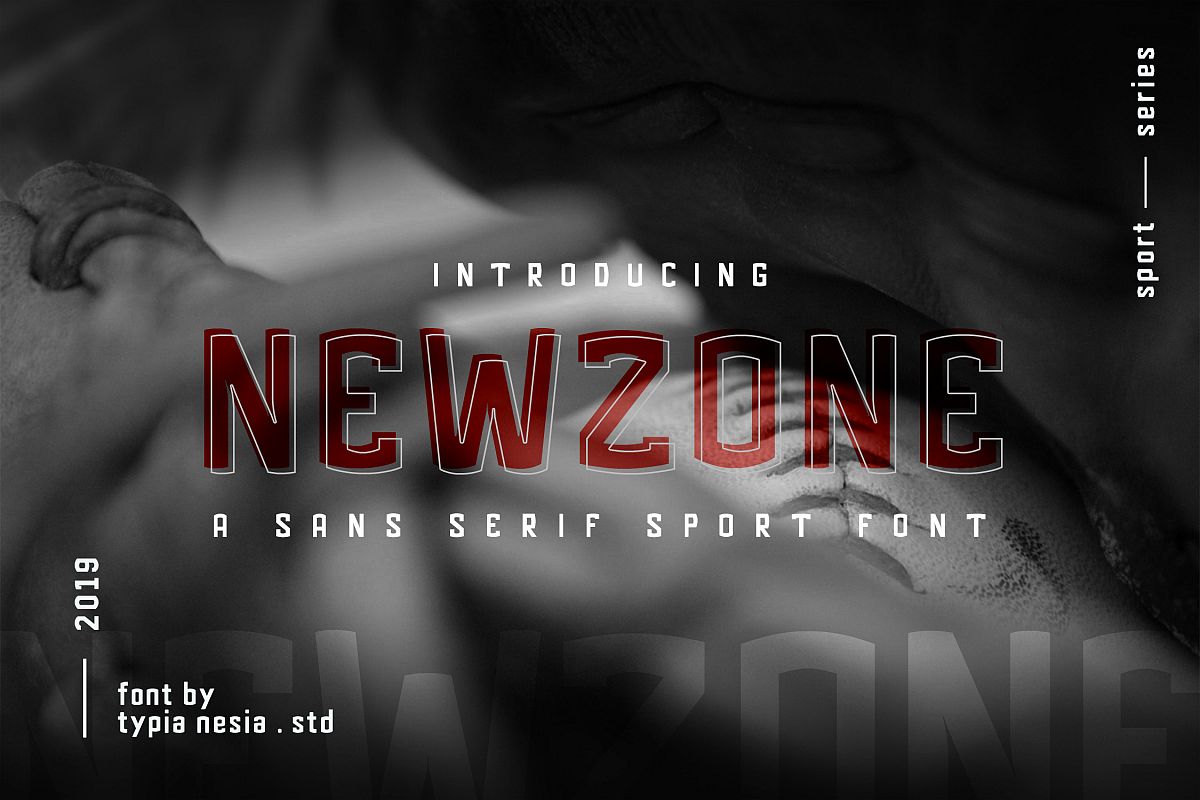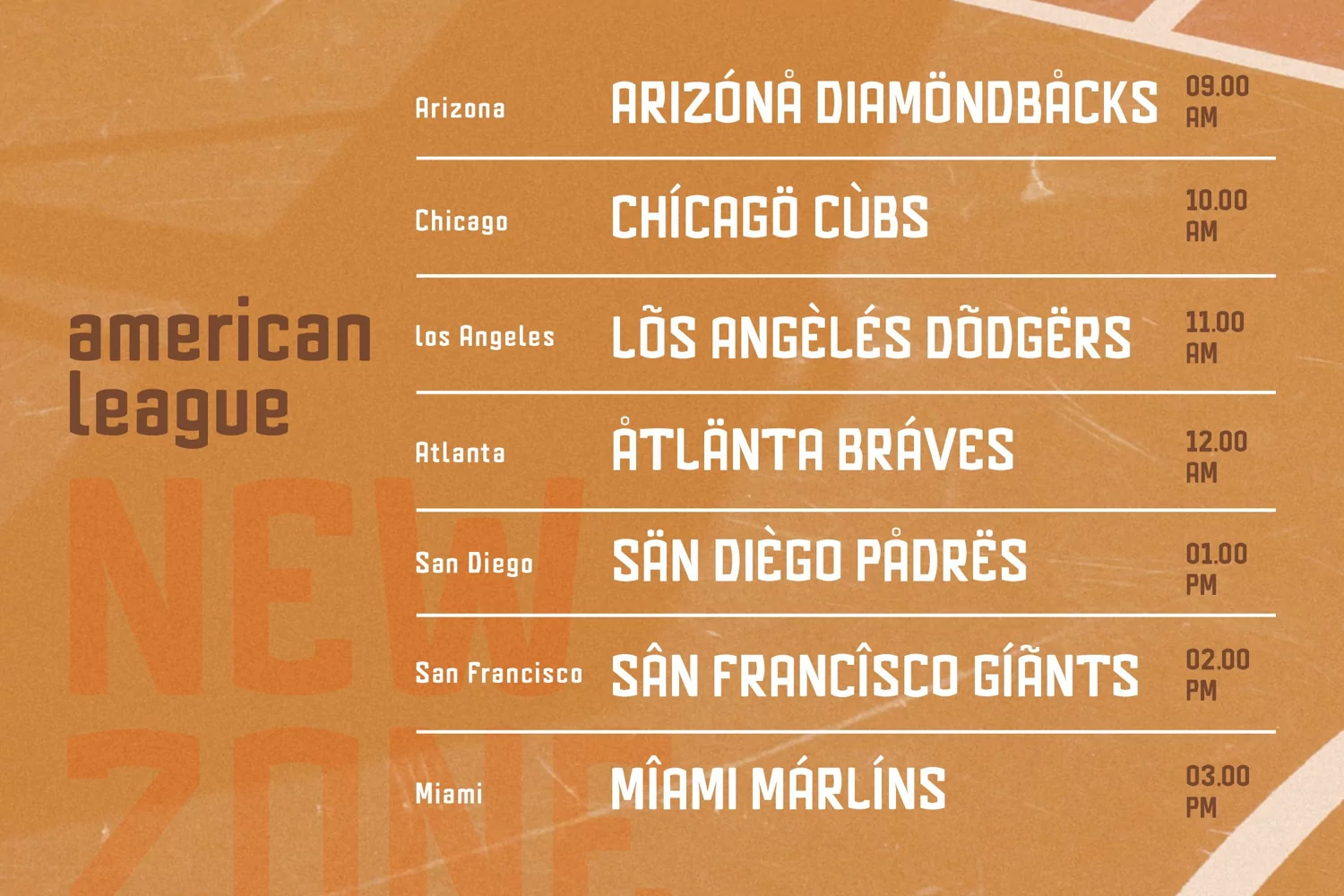
Newzone is Sport Display Sans font. It look manly, classy and strong.
Newzone font is suitable for any design needs : technological, sport, fashion, modern branding, modern advertising, print identity, magazine, website, mobile application and more.
NEWZONE